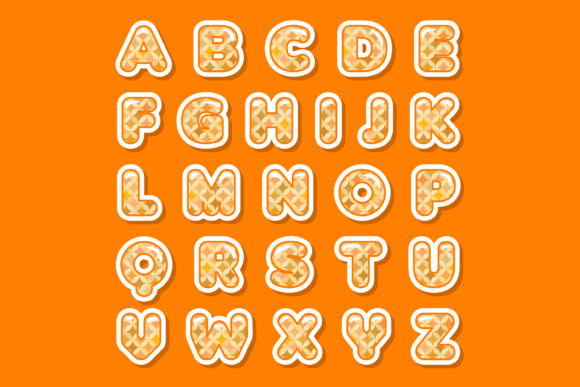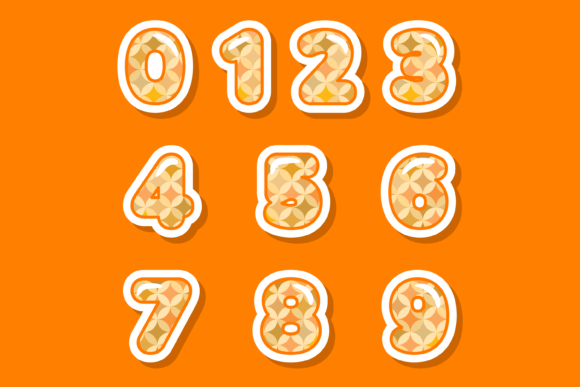
Star Circle Font
Star Circle is indeed an incredibly cool color font. Whether you’re working on custom designs, engaging in DIY crafts, or creating any project that requires a lovely touch, this font is a fantastic choice.
Inspired by the celestial beauty of starry skies and the enchanting allure of circles, Star Circle font captures the essence of these elements. The font’s design features a delightful combination of colorful stars arranged in circular patterns, creating a whimsical and captivating effect.
With its vibrant and playful color palette, Star Circle adds a touch of magic and wonder to your designs. Each letter is crafted with precision to form a harmonious arrangement of stars, invoking a sense of joy and creativity. The circular motifs create a sense of movement and energy, making the font visually appealing and engaging.
Whether you’re designing greeting cards, creating artwork for children’s projects, or adding a touch of whimsy to your digital designs, Star Circle font will bring a unique and eye-catching element to your creations. Its versatility allows it to be used in various contexts, from playful branding materials to imaginative illustrations.
By incorporating Star Circle into your projects, you can infuse them with a sense of enchantment and spark the imagination of your audience. The font’s captivating design and lively colors will make your creations stand out and leave a lasting impression.
Whether you’re a professional designer or a passionate DIY enthusiast, Star Circle font offers endless possibilities for creative expression. Its joyful and lively aesthetic will bring a touch of magic to any project, allowing you to create delightful and memorable designs.
In summary, Star Circle is an incredible color font that brings the beauty of stars and circles to your designs. With its playful design, vibrant colors, and versatile nature, it is an amazing choice for custom designs, DIY crafts, and any creation that requires a lovely touch. Let the magic of Star Circle font shine in your creative work and inspire wonder in those who encounter it.